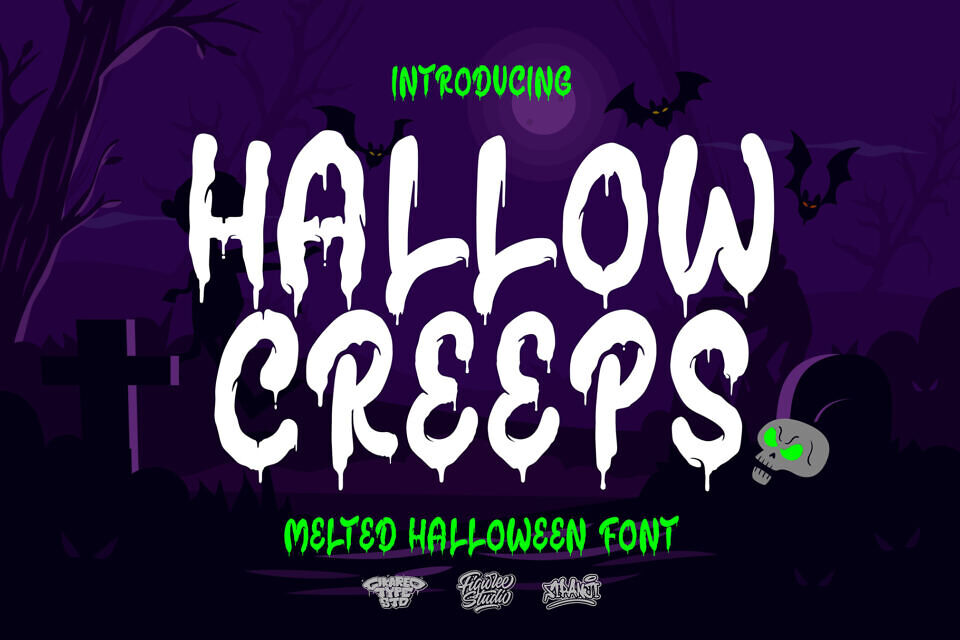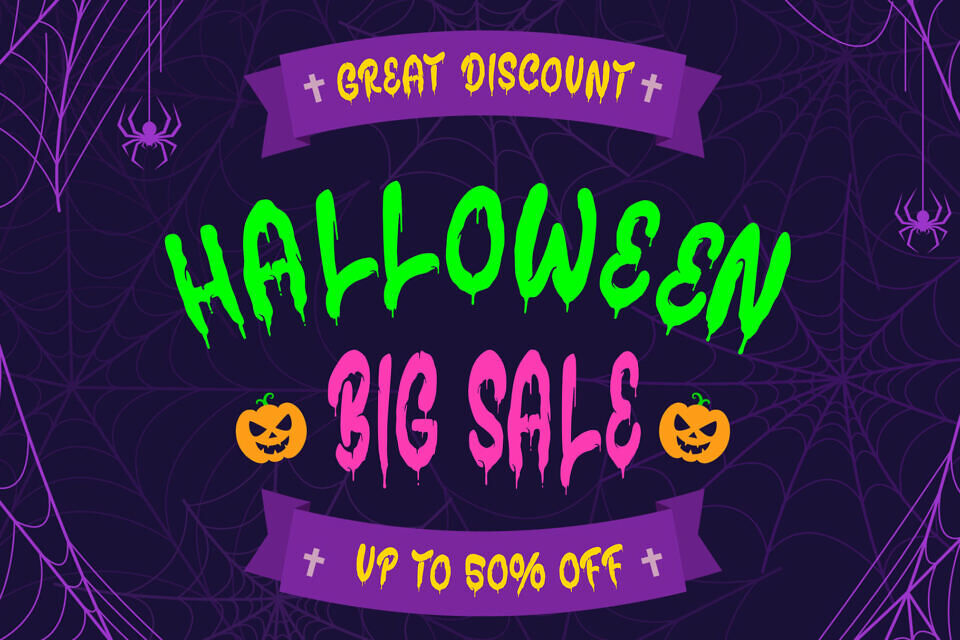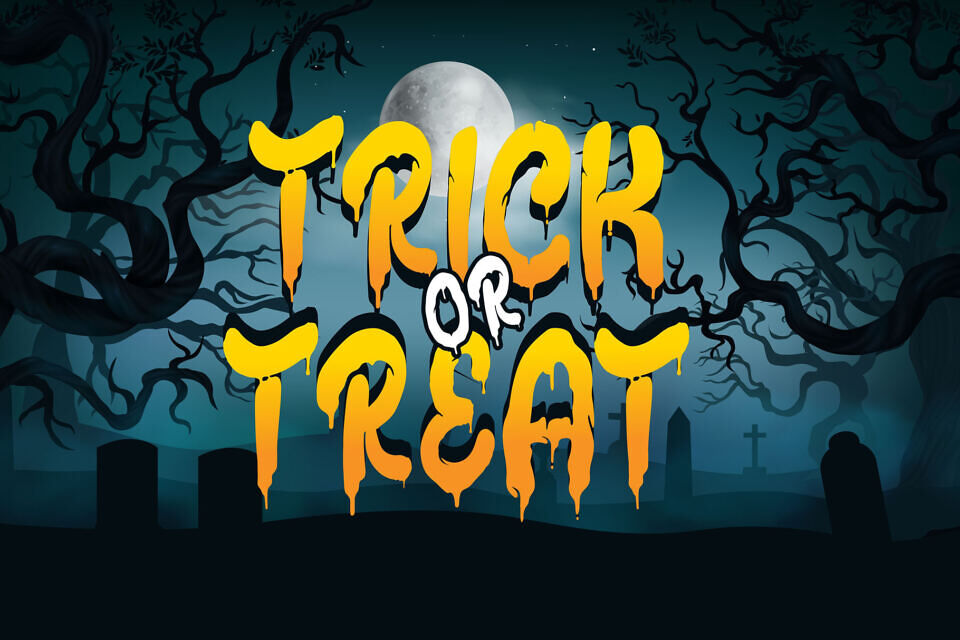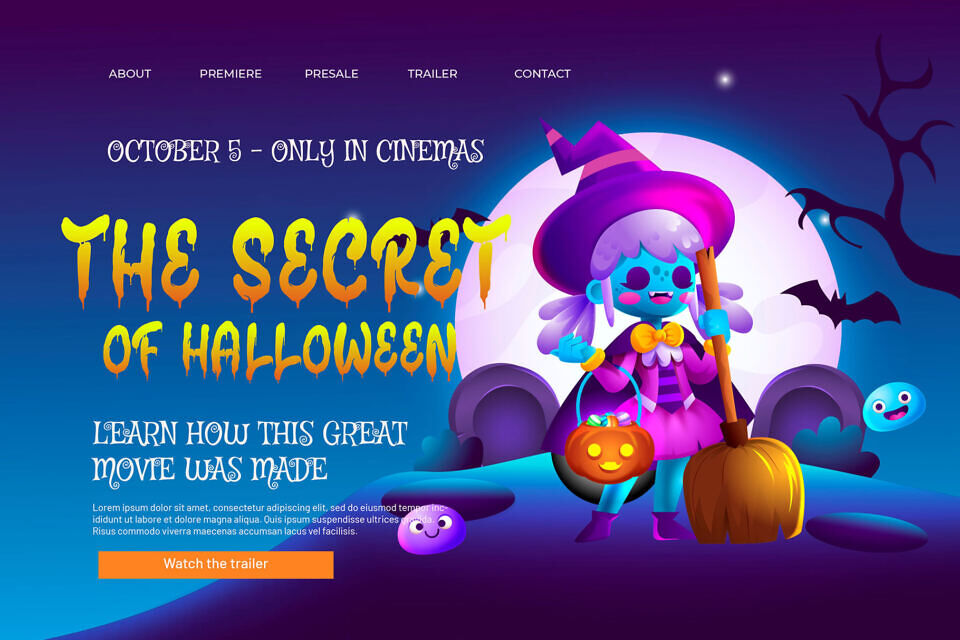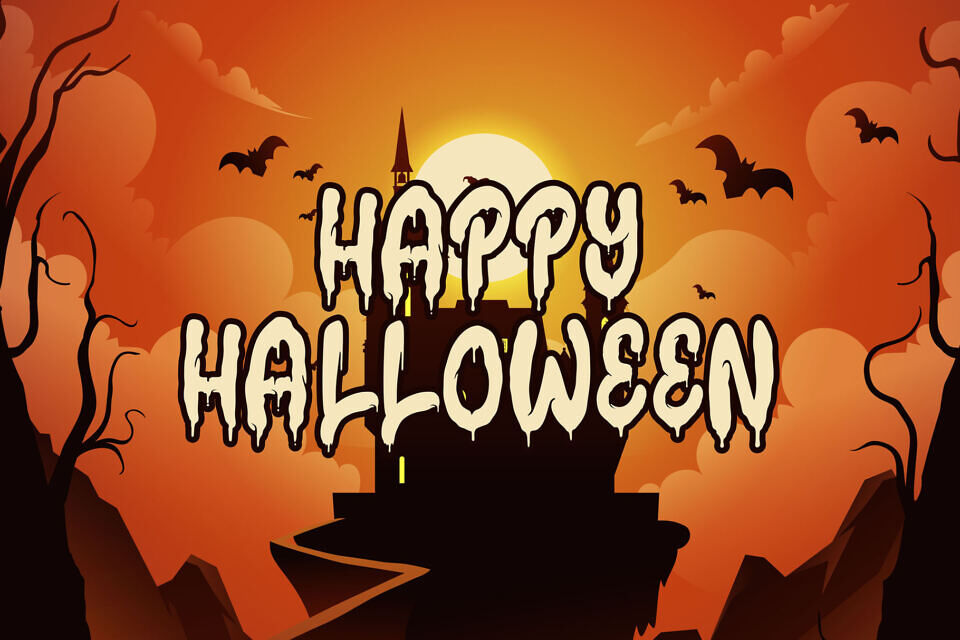
Hallow Creeps is a melted Halloween font created to capture eerie vibes with dripping details and horror-inspired styling. Its irregular strokes and melting edges bring spooky authenticity, making it ideal for posters, invitations, logos, and seasonal branding.
From pumpkin festivals to haunted house campaigns, this unique typeface transforms designs into haunting visuals. Perfect for horror movies, creepy events, and October projects, Hallow Creeps ensures every message stands out with chilling personality, playful fright, and unforgettable Halloween energy.